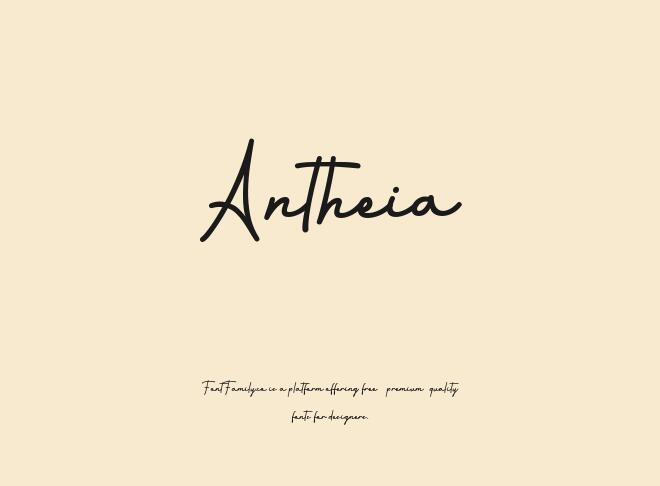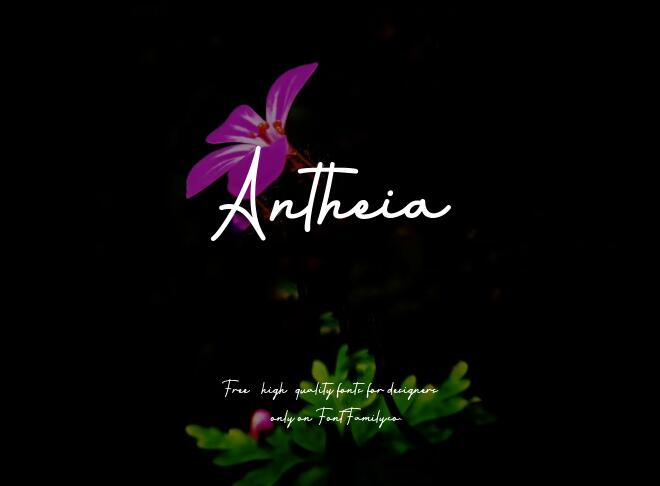
Antheia Font
Antheia Font, designed by Fontastic Foundry, is a modern and elegant script font with a handwritten touch. Released in 2021, it offers a balanced blend of classic and contemporary styles, making it a versatile choice for various design projects. The font's elegant strokes and refined curves are reminiscent of traditional calligraphy, yet its clean lines and modern sensibility make it fit seamlessly into contemporary designs. Antheia Font stands out among other script fonts for its readability and sophistication. It's ideal for branding, logos, invitation cards, headings, and any design that requires a touch of elegance and personalization. With its Open Font License, Antheia Font is free to use, making it a great choice for both professional and amateur designers alike.